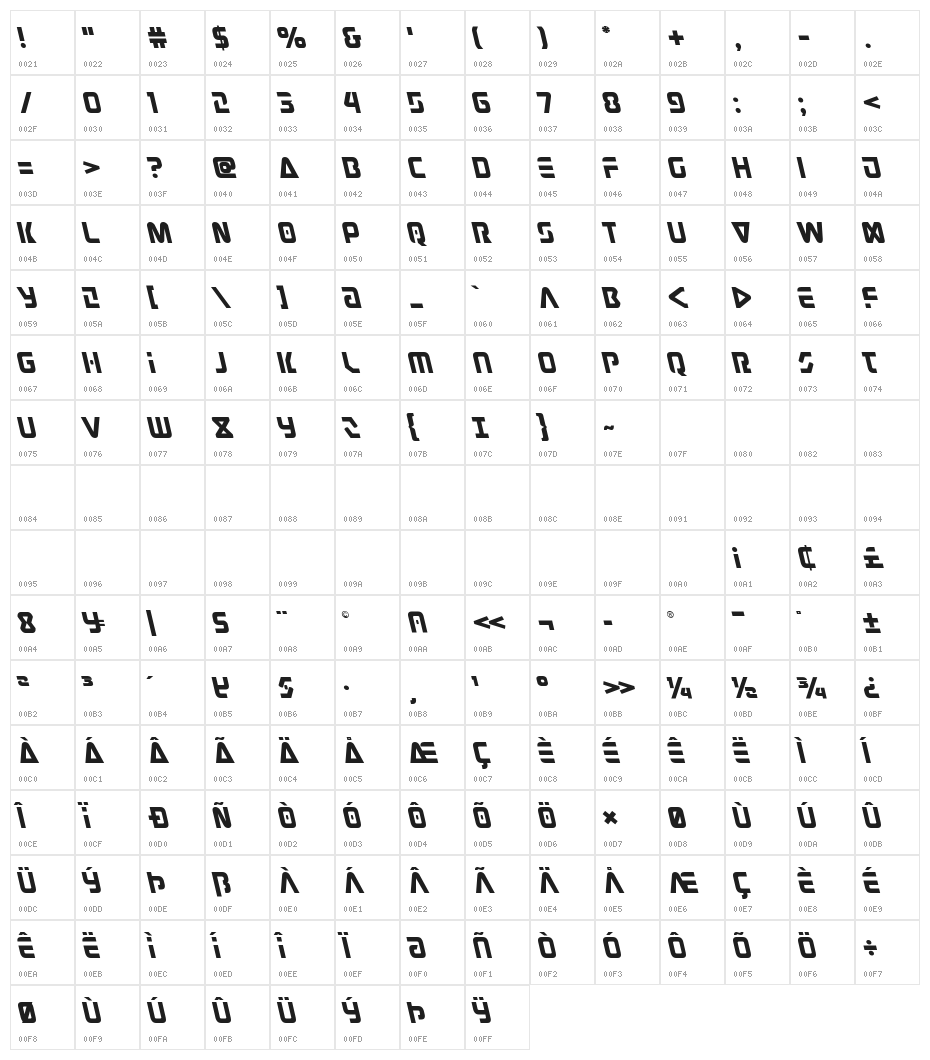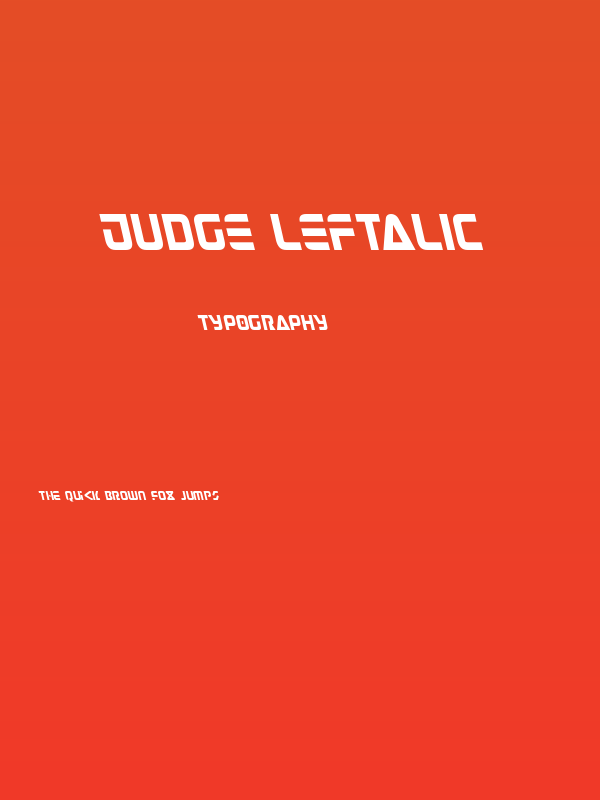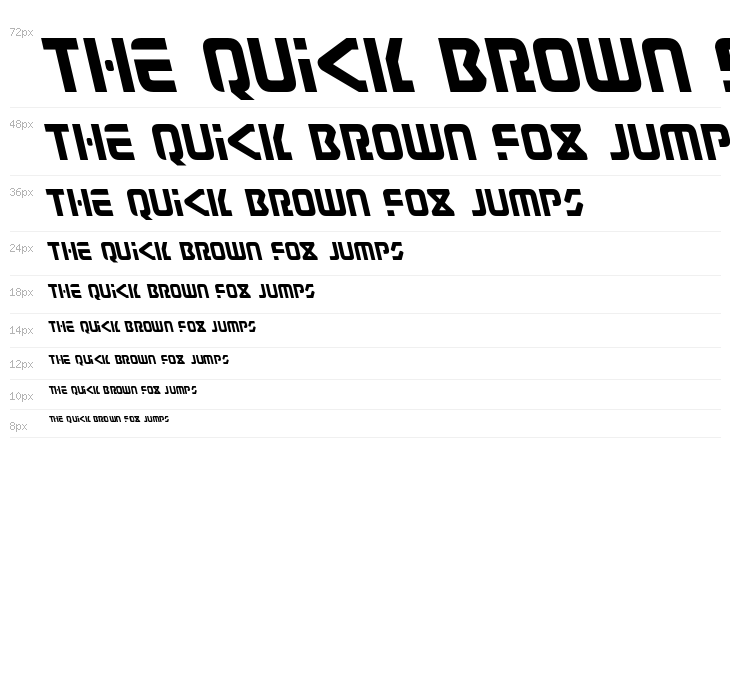
Judge Leftalic Font
Judge Leftalic Description
This font features a bold and futuristic design with a distinct geometric style. The characters are constructed with sharp angles and clean lines, giving it a modern and edgy appearance. The uppercase and lowercase letters maintain a consistent style, with a unique slant that adds a dynamic feel. The numbers and special characters follow the same design principles, ensuring uniformity across all glyphs. The font's bold weight and high contrast make it highly legible and impactful, suitable for attention-grabbing headlines and logos. Its unique style is ideal for projects that require a modern and technological aesthetic.
| Proposed Projects | Ideal for technology branding, sci-fi themed designs, video game titles, and modern advertising. |